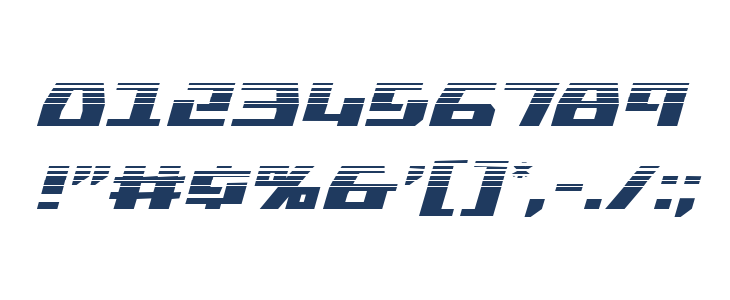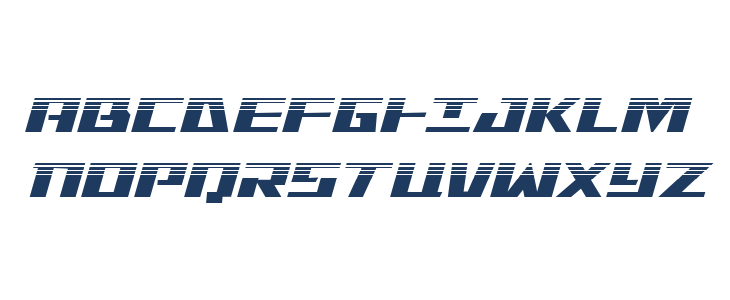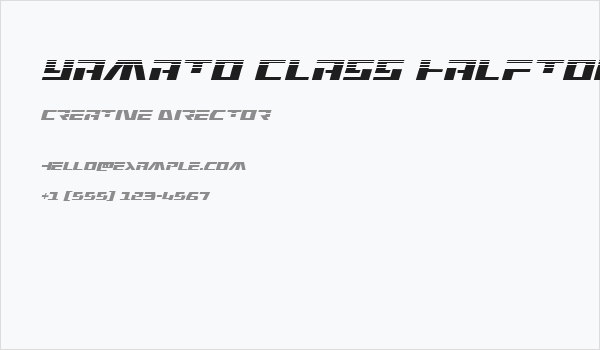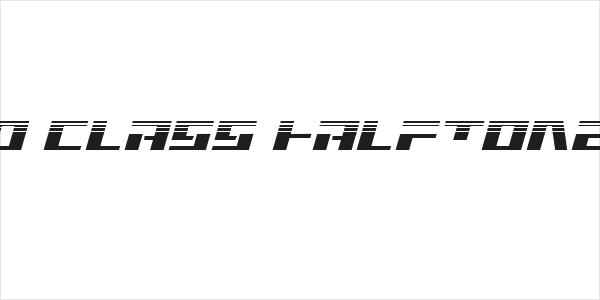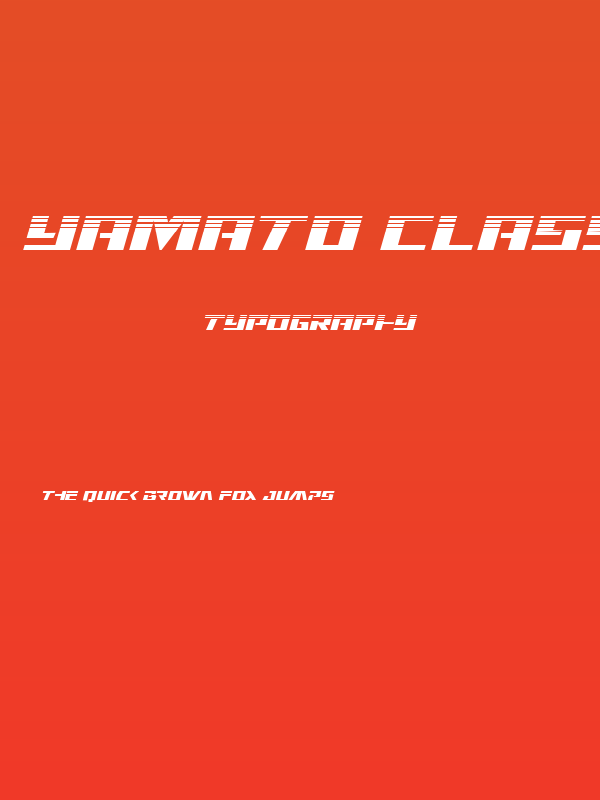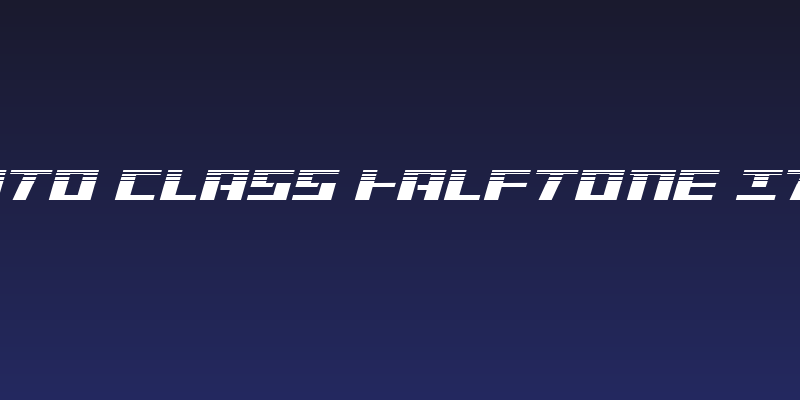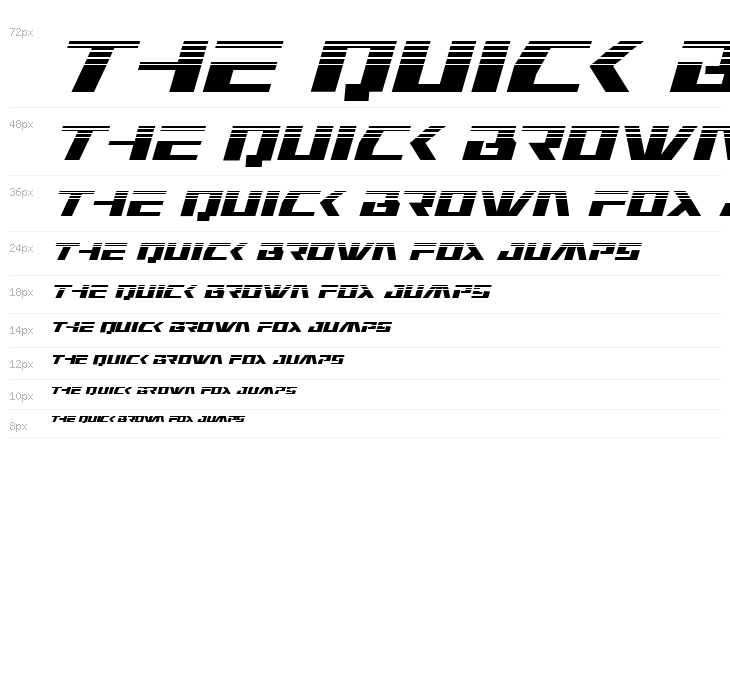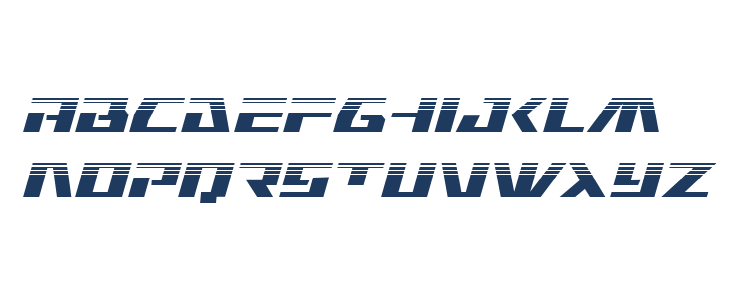
Yamato Class Halftone Italic Font
Yamato Class Halftone Italic Description
A bold, italicized display typeface featuring geometric, angular letterforms with horizontal halftone stripes cutting through each character, creating a dynamic, futuristic effect. The font is all uppercase with consistent, blocky proportions and sharp edges.
| Overall Style | Futuristic, Decorative |
| Proposed Projects | Posters, sci-fi branding, video game titles, event flyers, technology logos. |